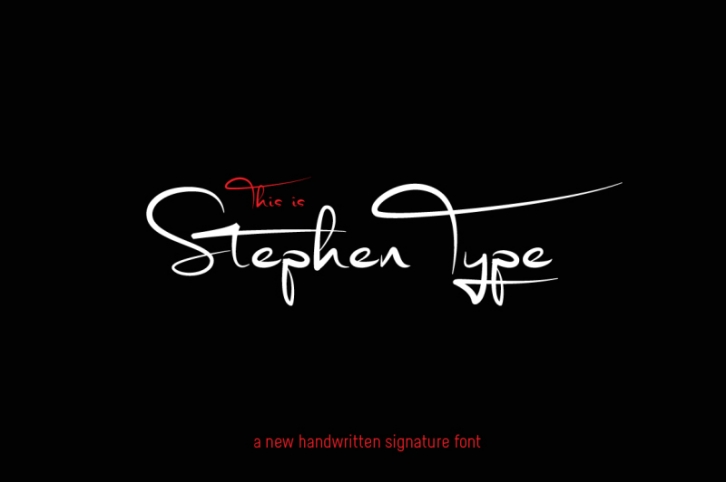
Signature font - Stephen Type Download
Stephen Type is a realistic handwriting and signature font. Please see all of the additional pictures to see how it looks and view the glyphs (includes some Latin glyphs). It can be used for a wide range of projects, such as logo designs, online signatures, email signatures, party & wedding invitations, t-shirt designs, signs, magazine design, greetings cards, poster design and much more! Files included: Stephen Type.otf Stephen Type.ttf I hope you have lots fun with this :) Copyright Joanne Hewitt 2015. Reselling or sharing of this font is strictly forbidden.